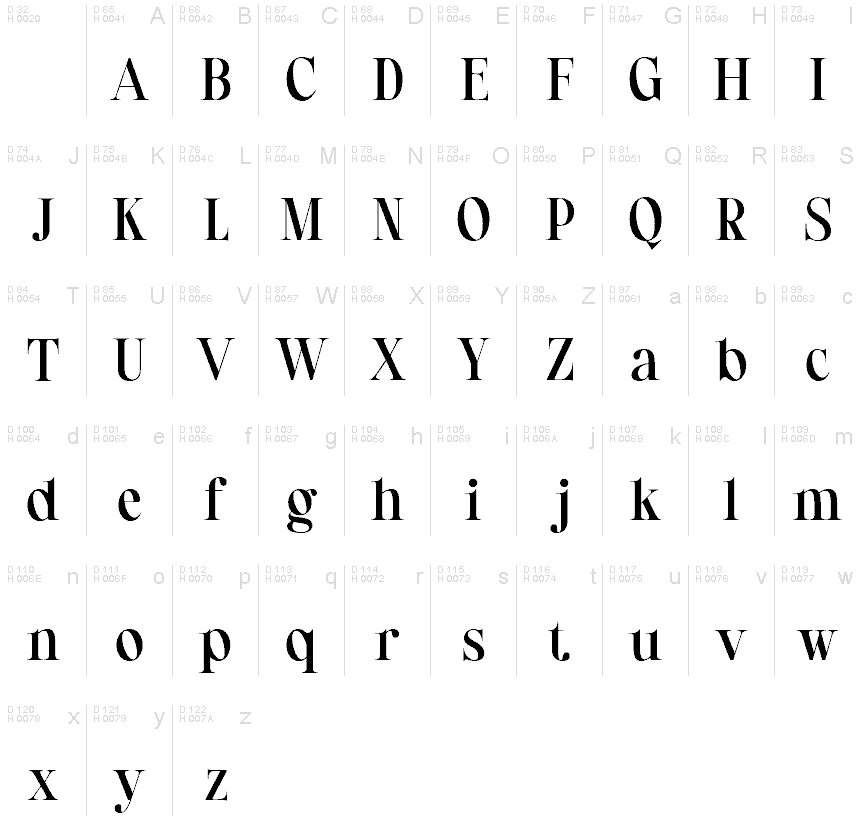
Romildo Demo Regular
Romildo font by Craft Supply Co is an elegant and modern serif whose features make any text look sophisticated. The refined line work enhances the classiness, making the overall look suitable for high-end projects. It’s a sophisticated-based font with an exceptional quality to its clean icy letters.
Take advantage of Romildo’s stunning appearance in social media promotional materials, printed t-shirts, bedding, digital backdrops, posters, branding projects and web designs. It’s also great for magazines covers and headings where attention-grabbing fonts are necessary!